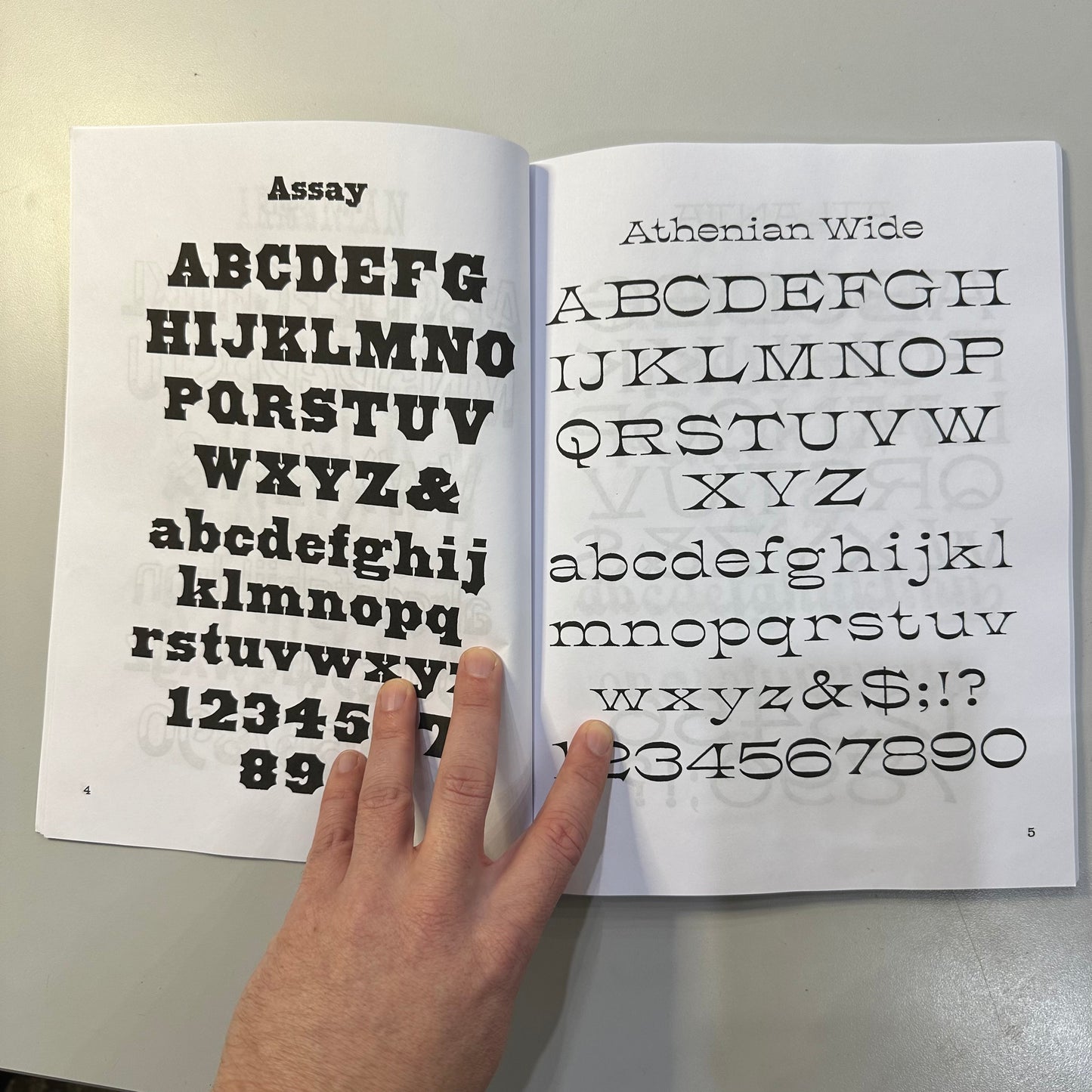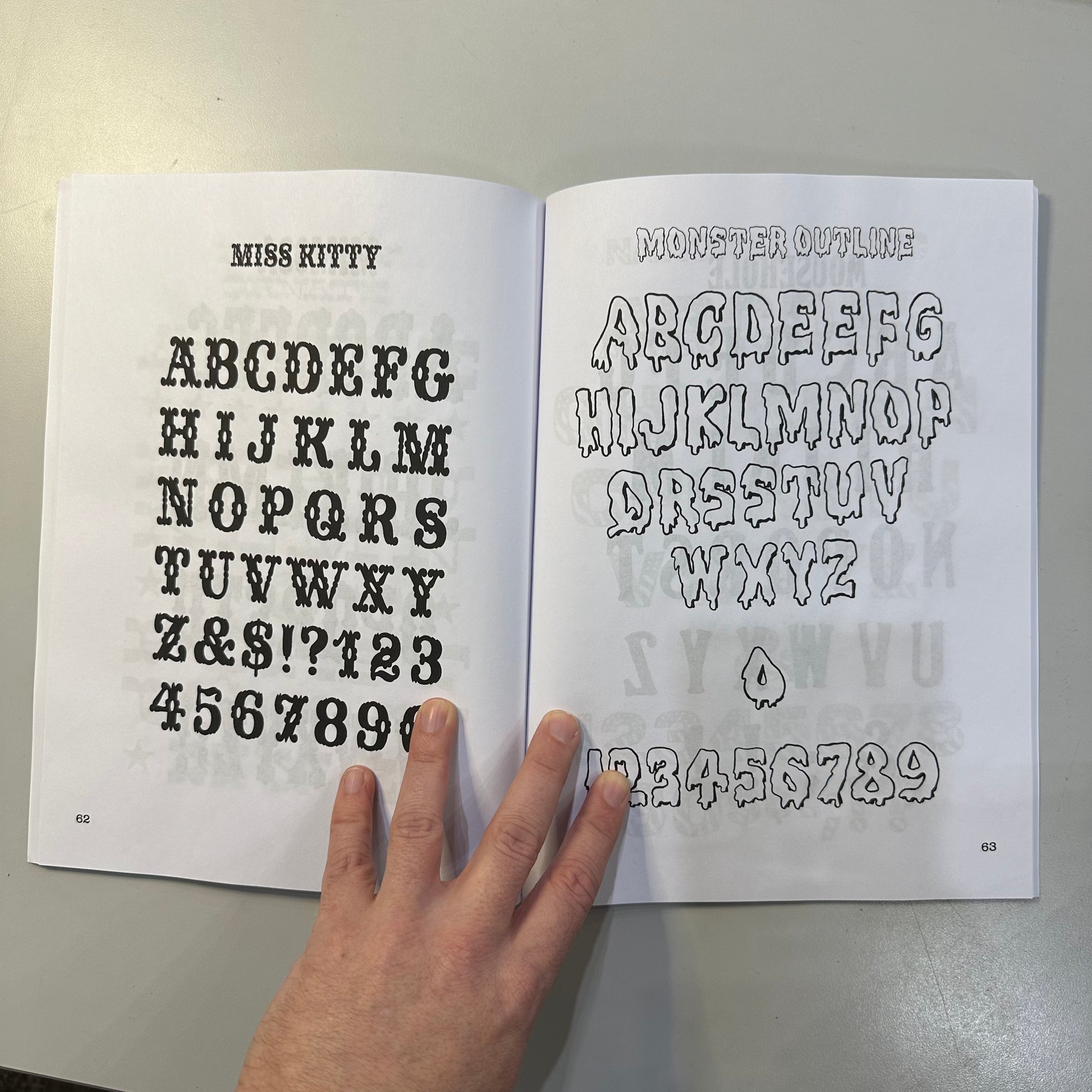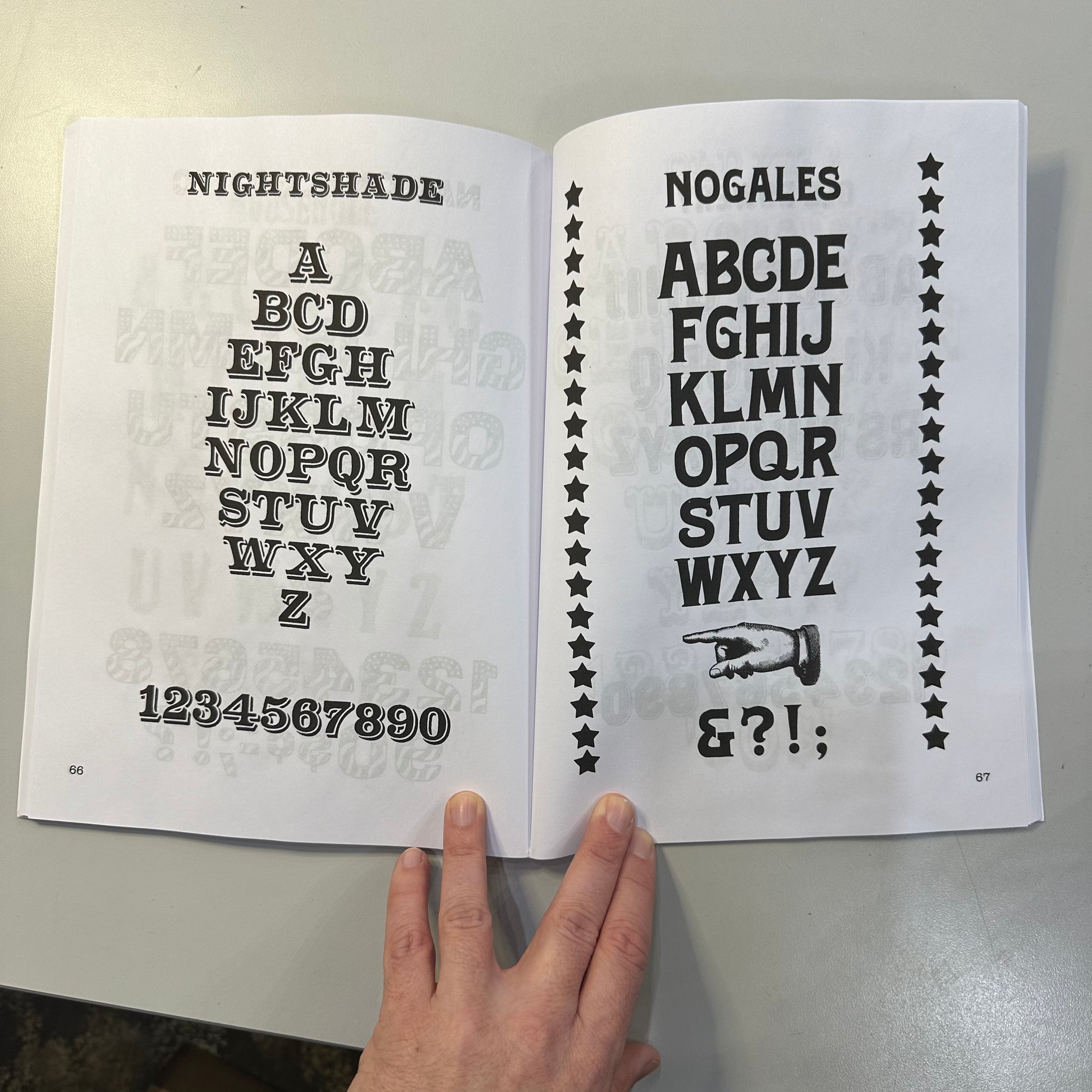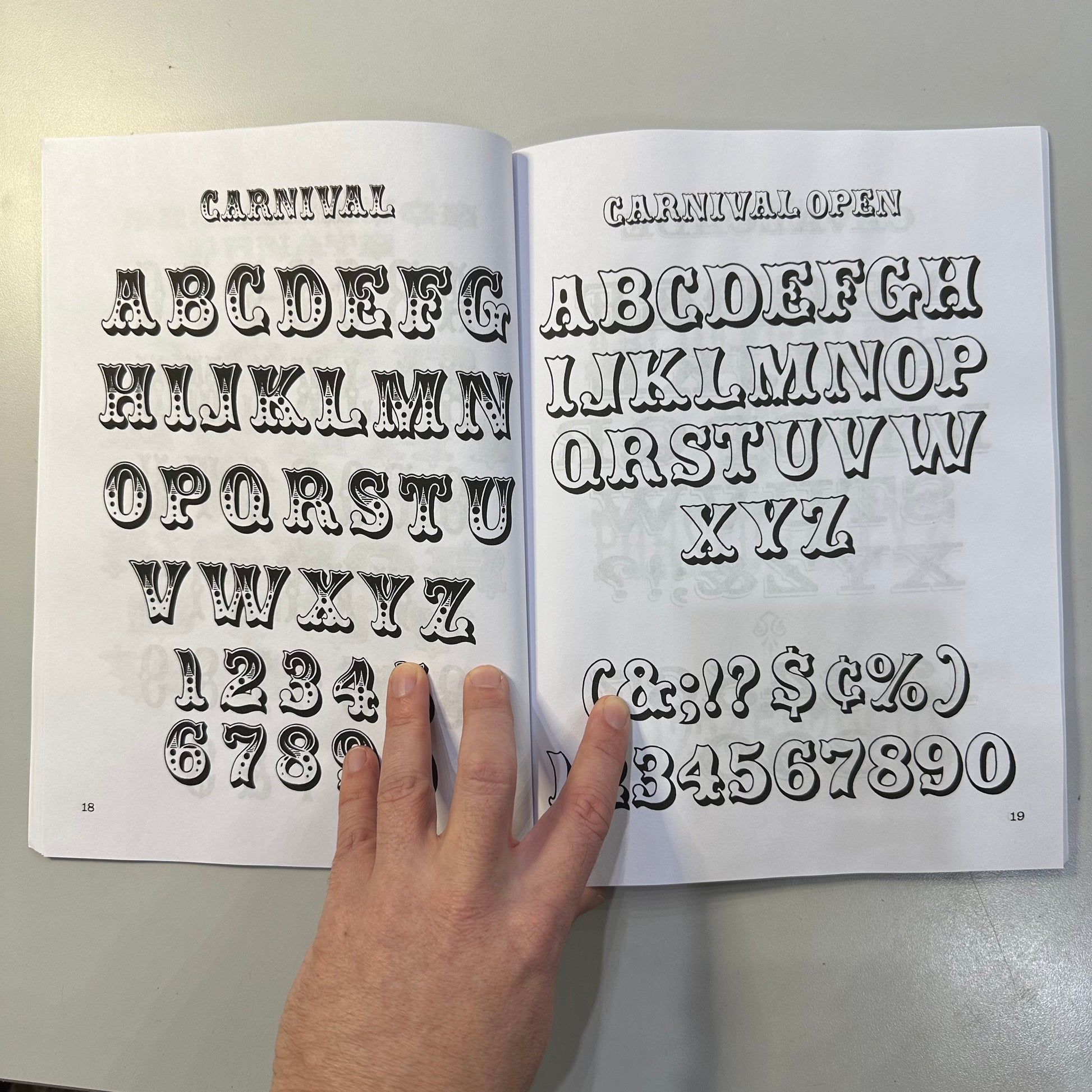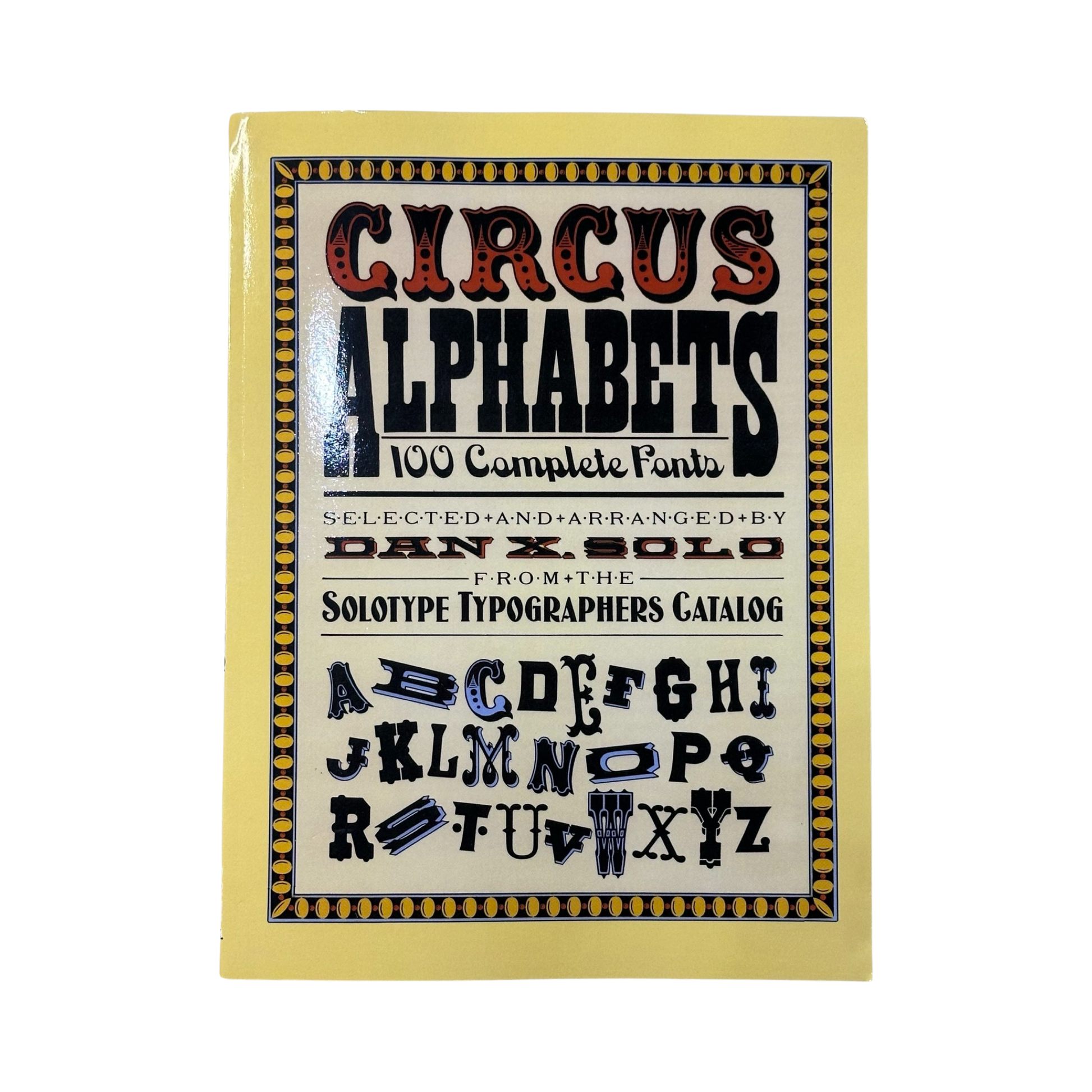
Circus Alphabets 100 Complete Fonts Book
Attractive sourcebook of old-fashioned typefaces -- mostly tall, fat and bold! Each font has uppercase alphabet; many have numerals, lowercase alphabets, more.
For this impressive collection, typographer and print historian Dan X. Solo has selected 100 fonts, many of which are reminiscent of the old-fashioned print styles found on turn-of-the-century posters and broadsides. Alphabets such as the attention-getting Carnival, Frolic, and Houdini fondly recall that era. Others are attractions themselves, including the foreign-looking Armenian and Tokyo; the eerie Monster Outline and Raindrops; and the glamorous Diamond Inlay, Startime, and Golden Era. Additional alphabets include: Balderdash; Big Cat; Eureka; Cheapjack; Dodge City; Earthquake; National Gothic; Ringmaster; Toscana; Wood Relief; and 80 other high-impact typefaces.
Each font contains a complete upper-case alphabet; many include numerals, lower-case alphabets, punctuation marks, and symbols or vignettes. Available in a variety of sizes, the faces come in assorted shapes--mostly tall, fat, and bold--but always eye-catching and affordable.